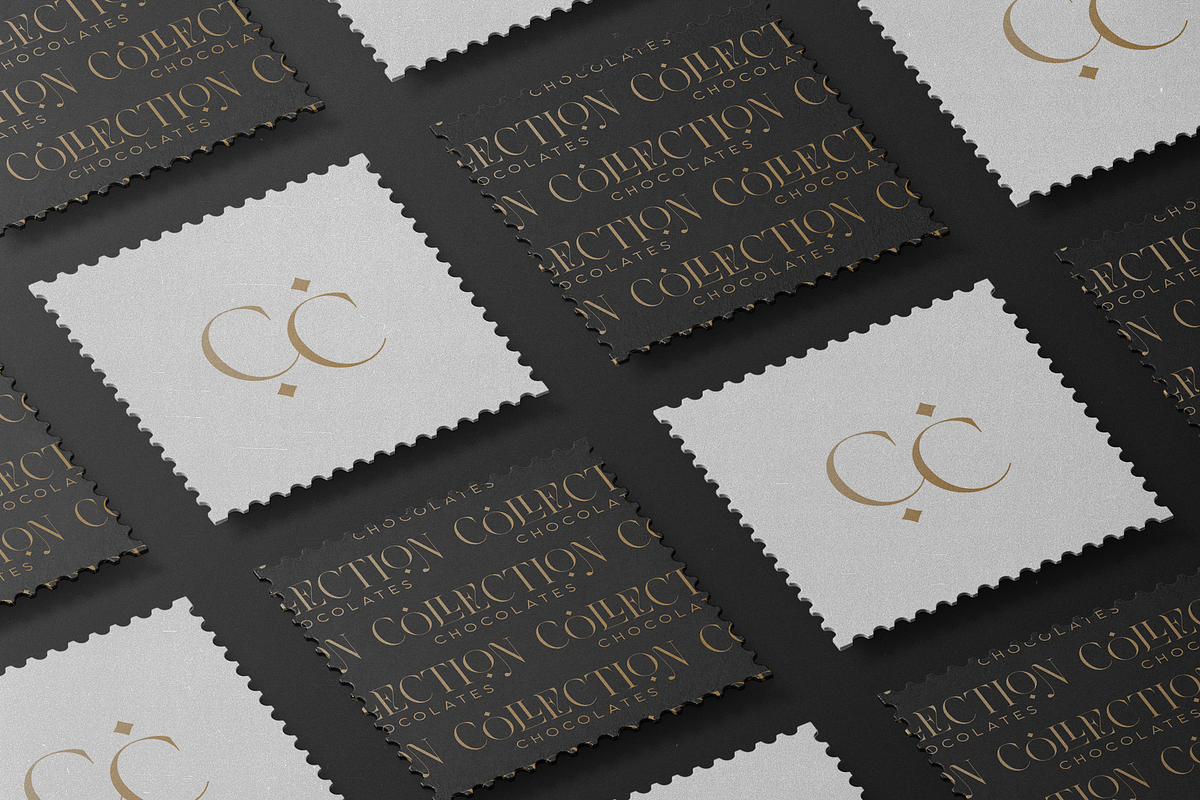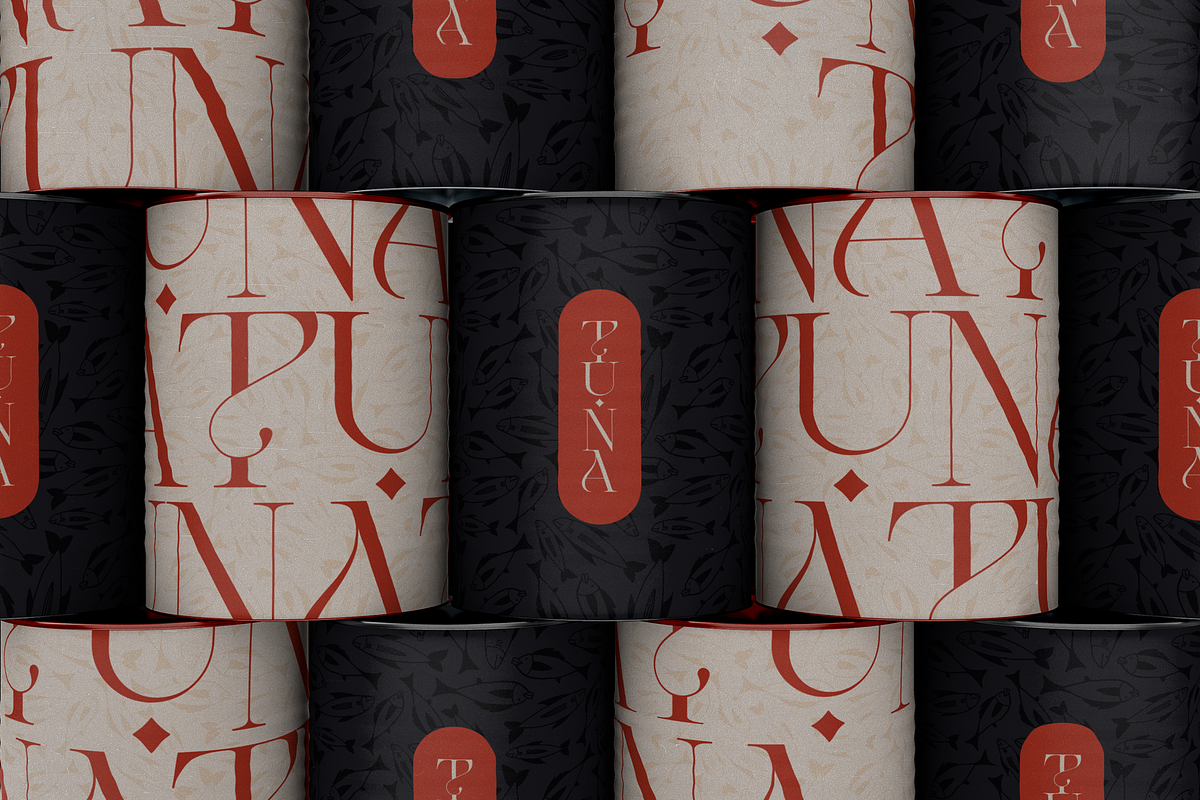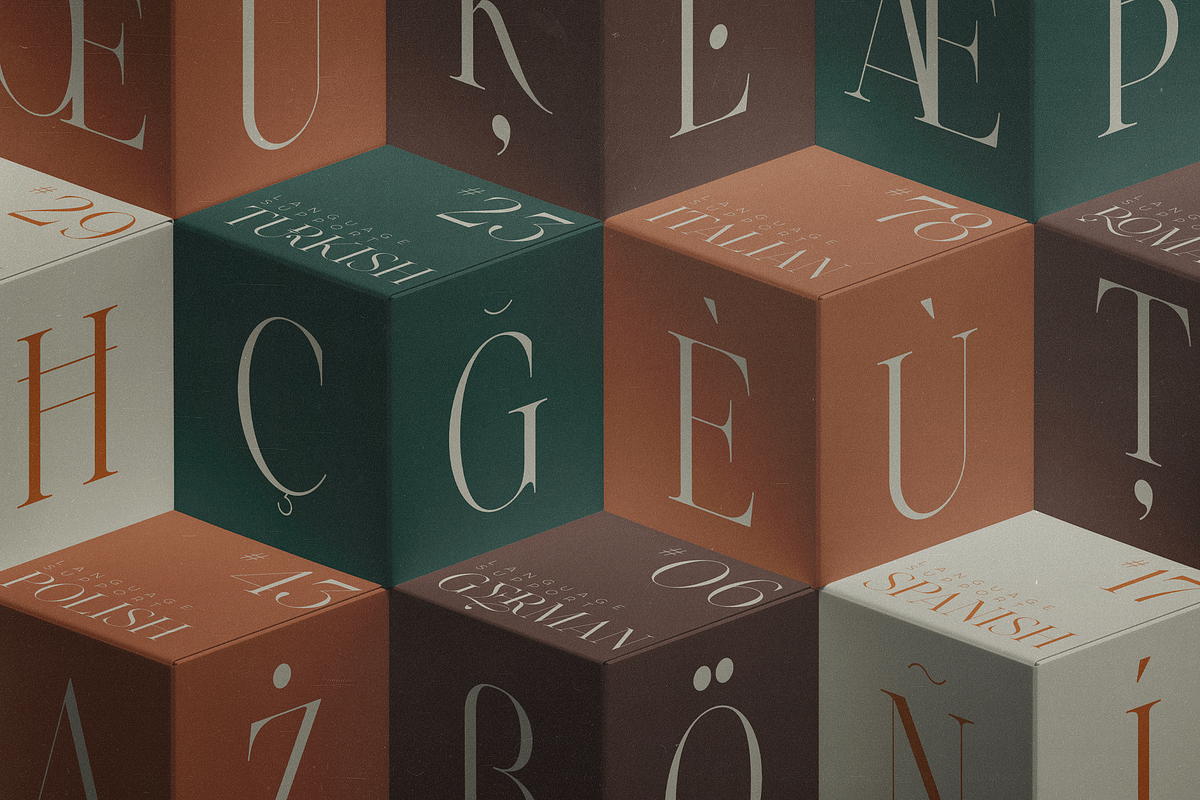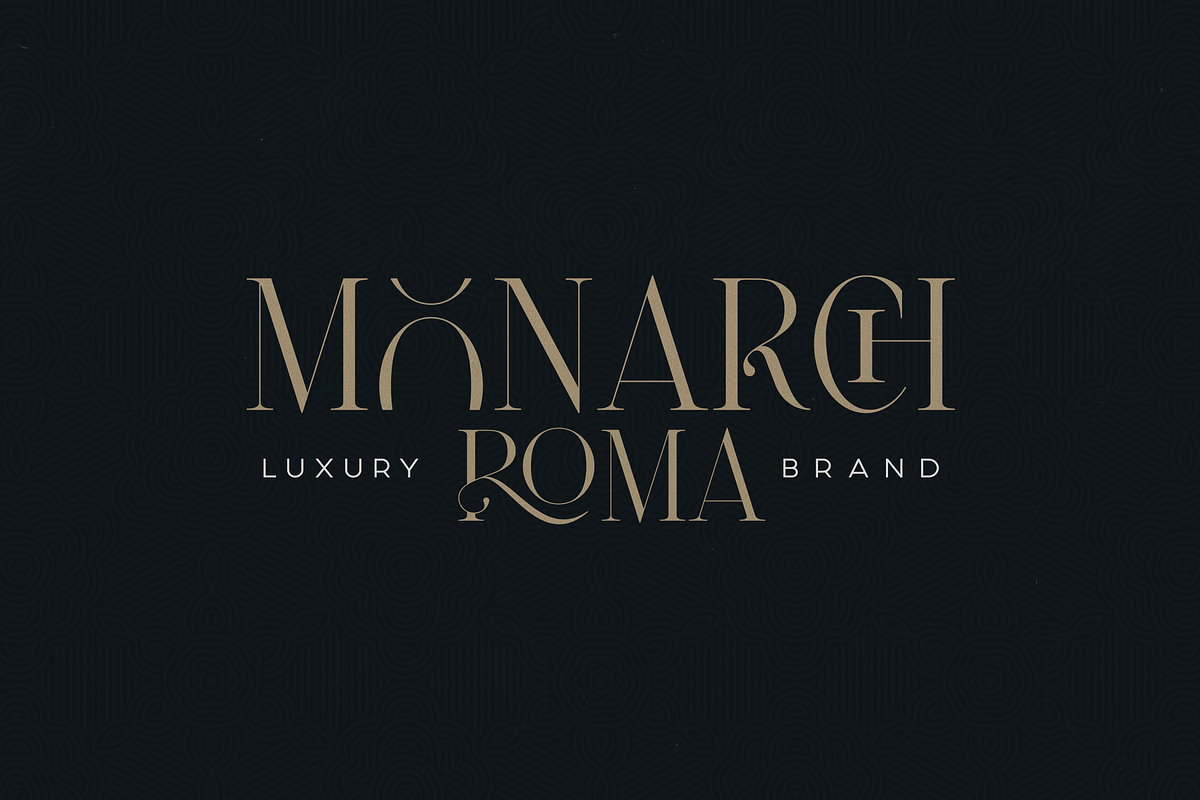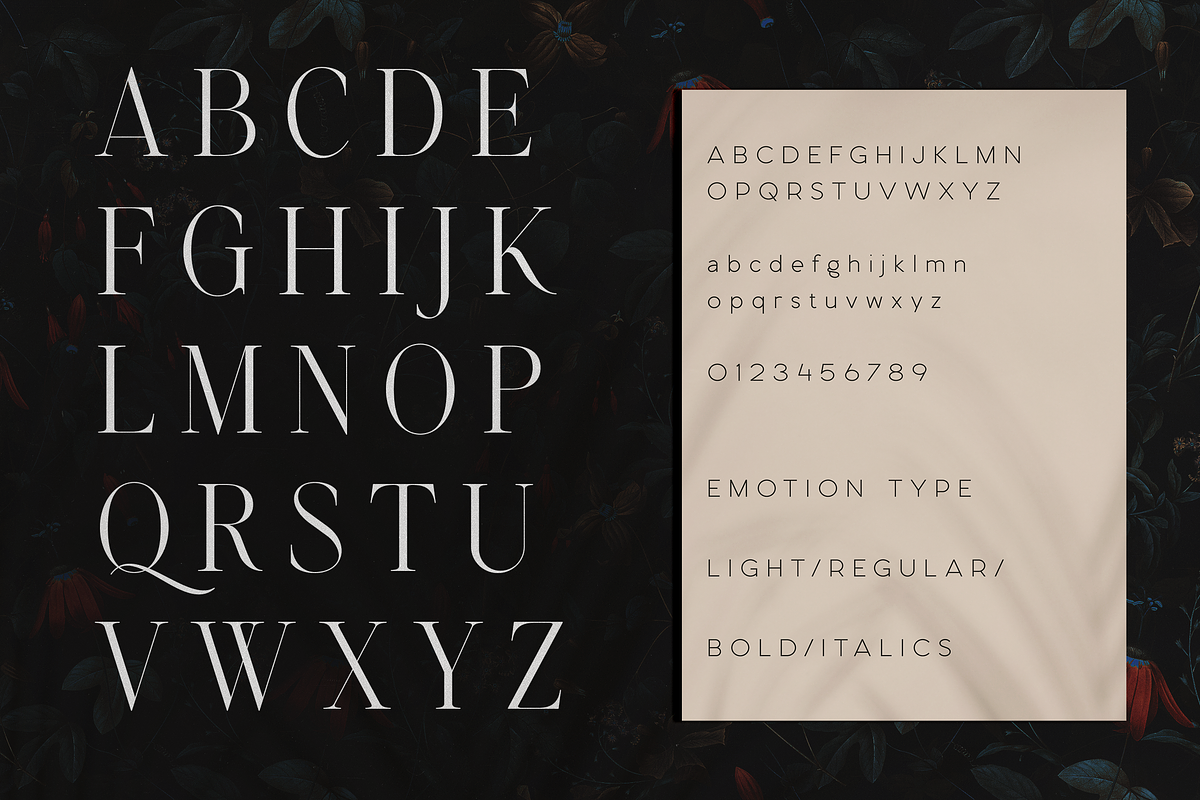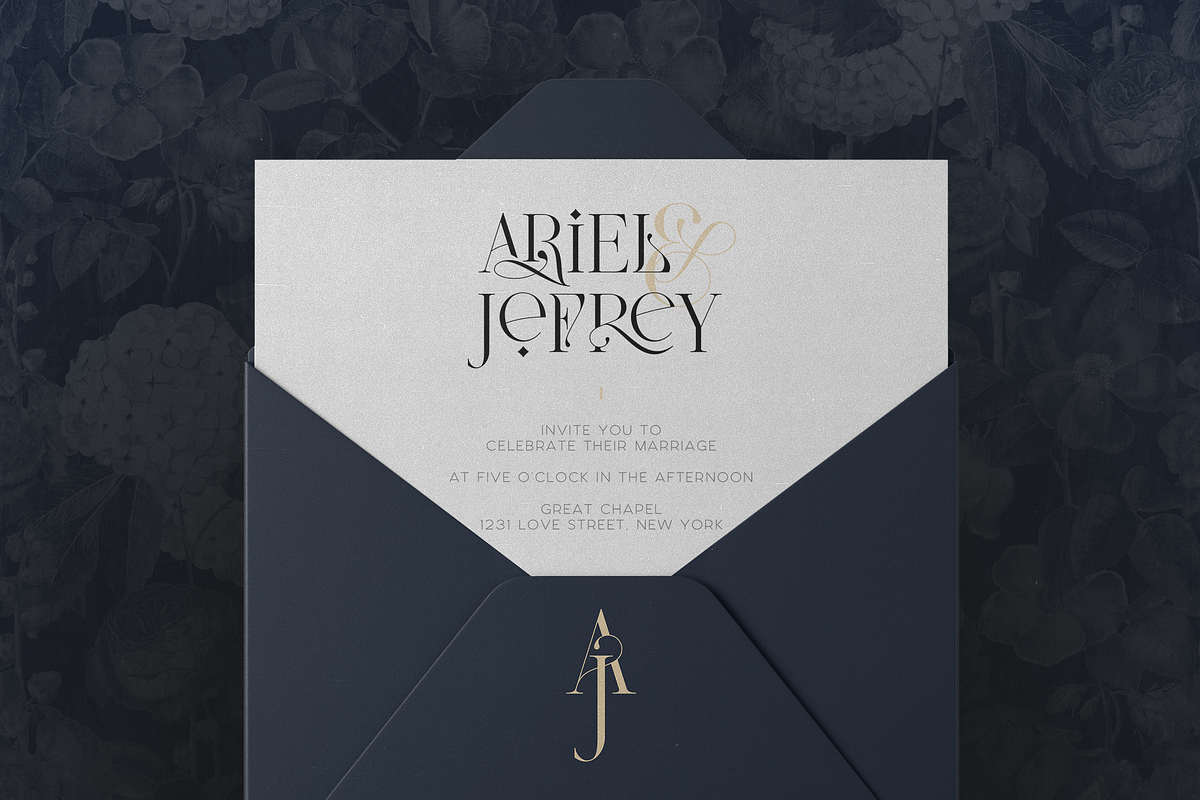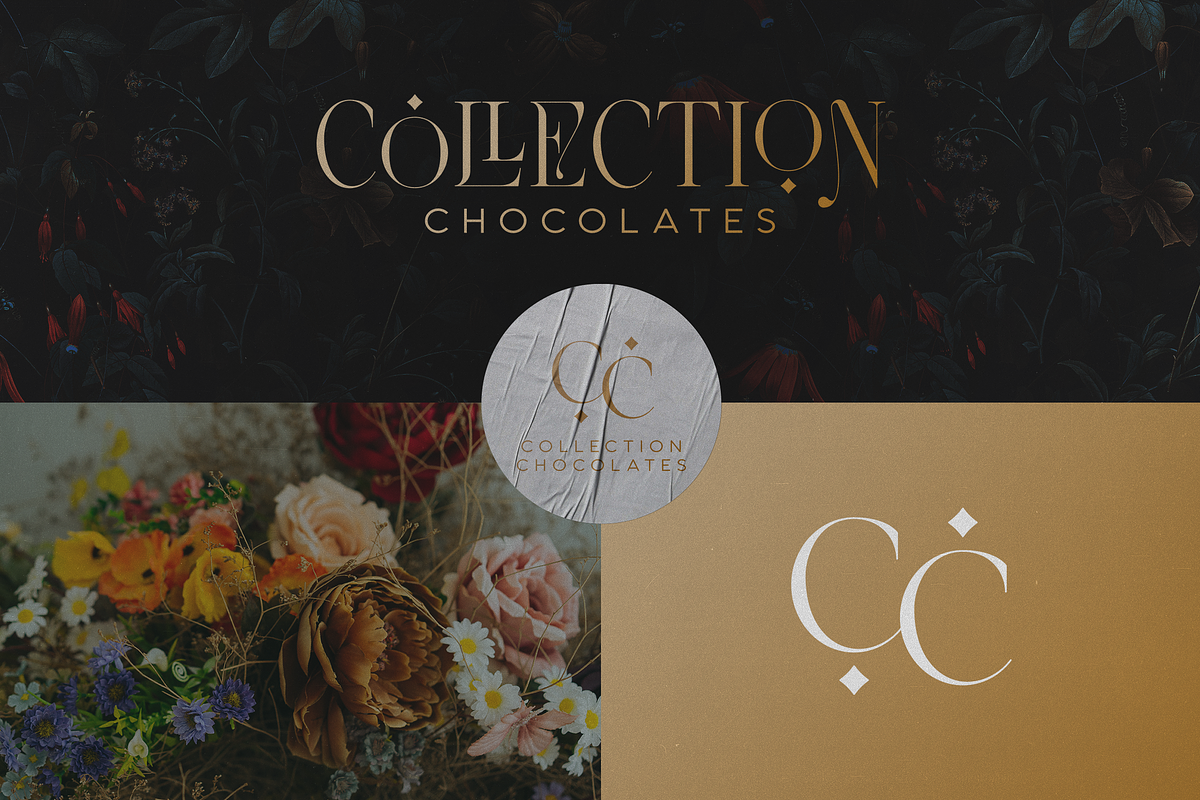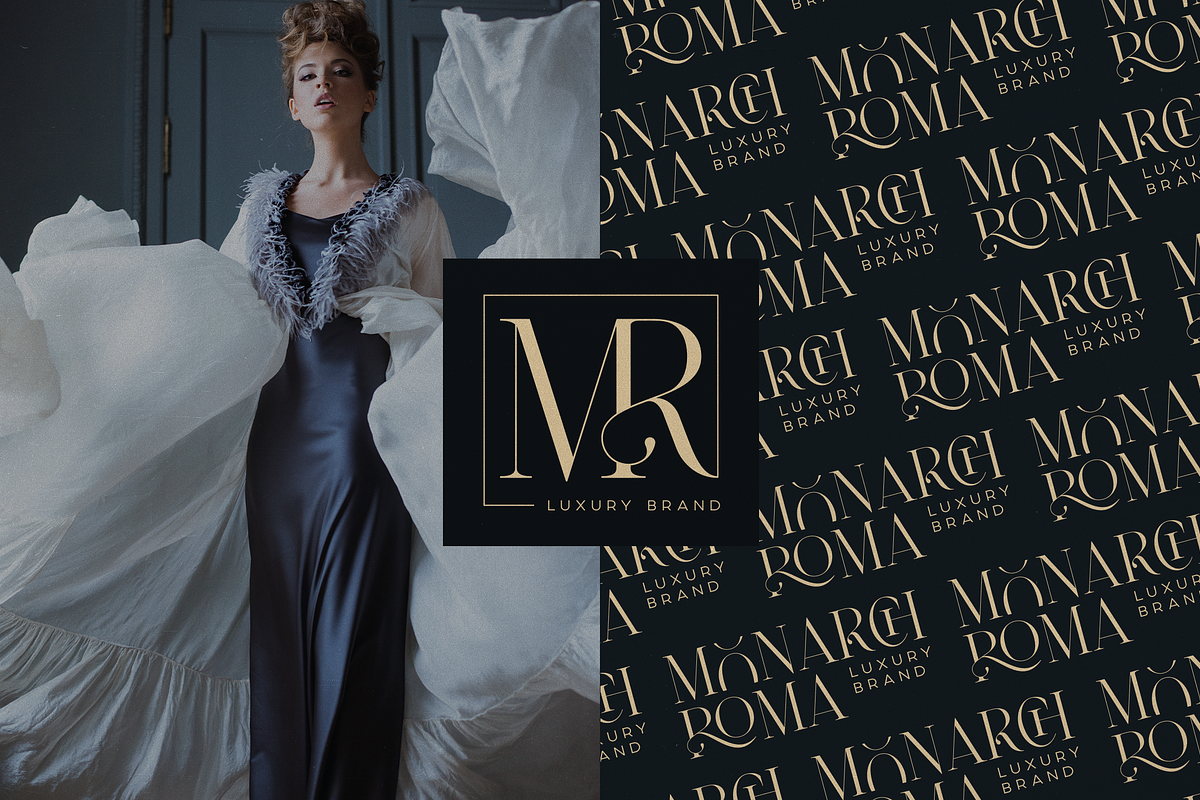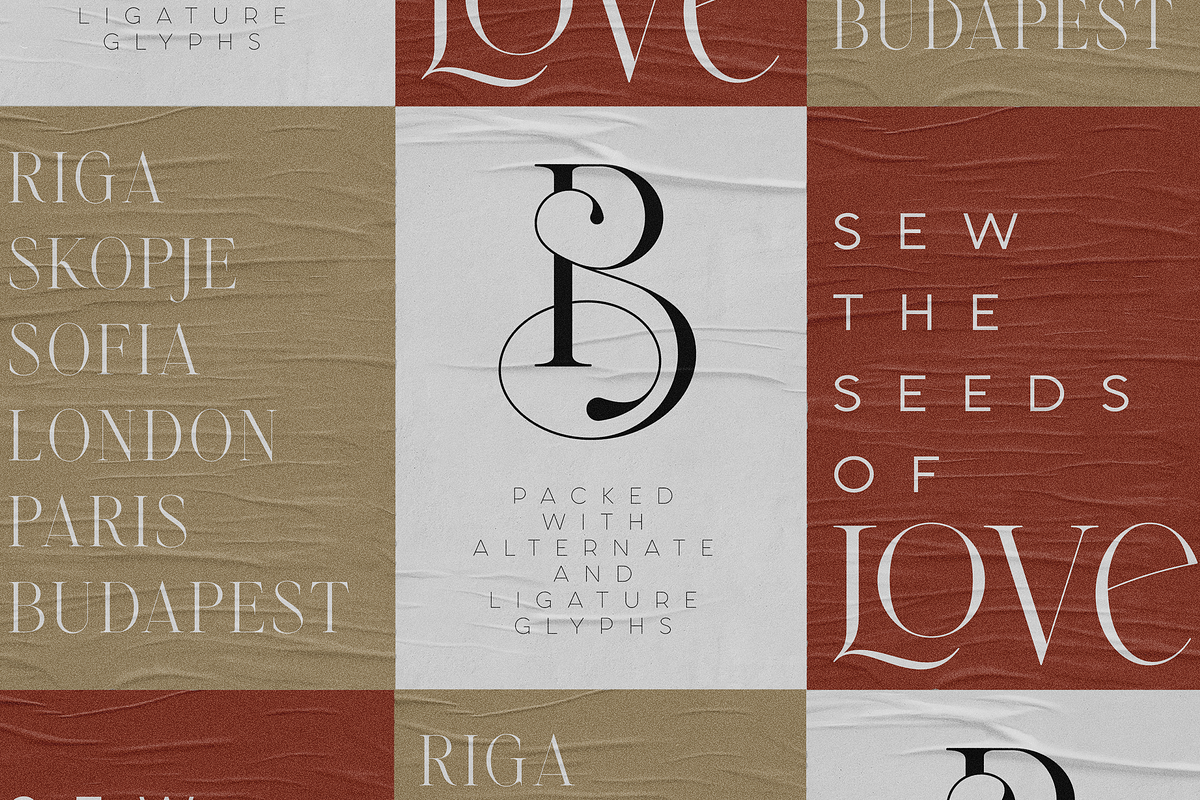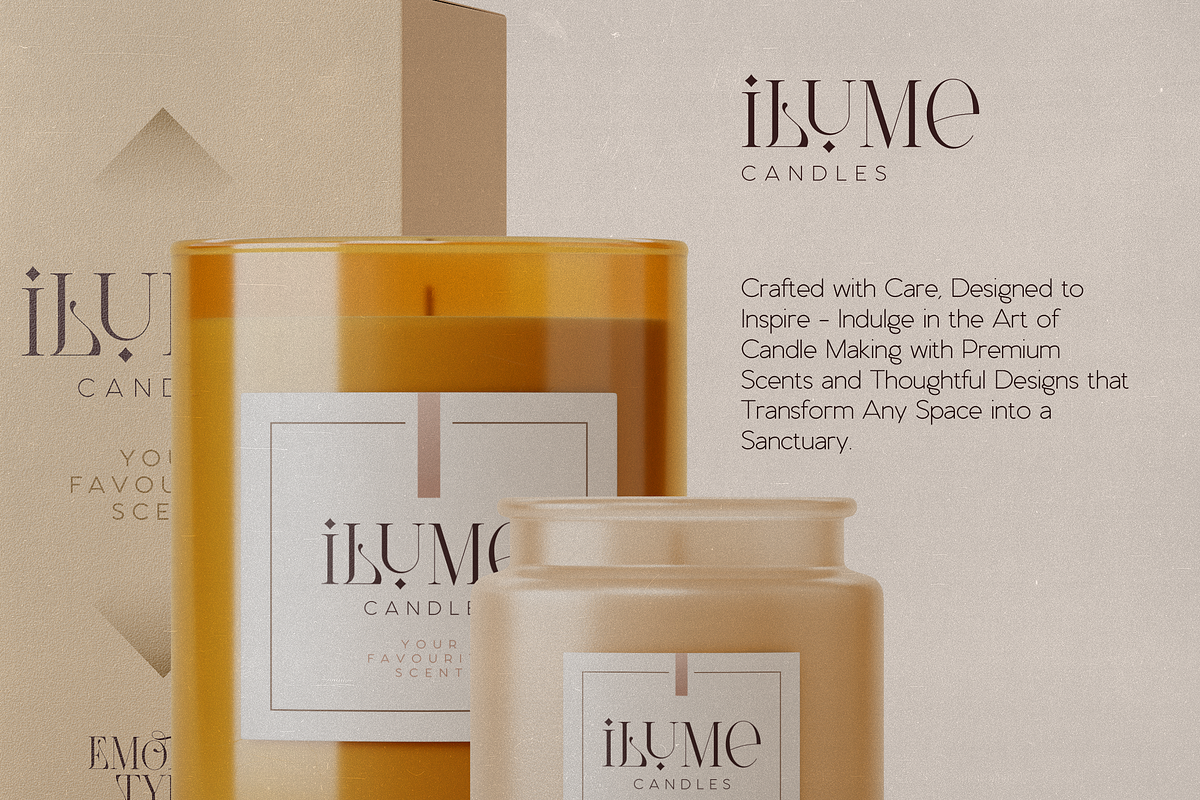
Emotive Type - creative font duo
Emotive Type is a sophisticated serif font designed with an emphasis on elegance and versatility. Its rich set of alternate and ligature glyphs enables you to create dynamic, high-end typographic designs. Alongside the serif, it includes six clean sans-serif fonts, making it a versatile choice for branding, packaging, and editorial design. Supporting 87 languages, Emotive Type caters to a broad, global audience. The font reflects luxurious and expressive vibe, ideal for high-end, refined, and artistic design projects.
I have probably bought more fonts from this foundry than any other - and I have to say Emotive is easily one of the most beautiful you've crafted. ( I think the last one I purchased before this was 'Moon Type' which I also loved ) but this is a masterpiece. It has it all - elegance, sophistication, gorgeous alts, the lines and ligatures are stunning. Chef's Kiss! 🤌 Thank you!